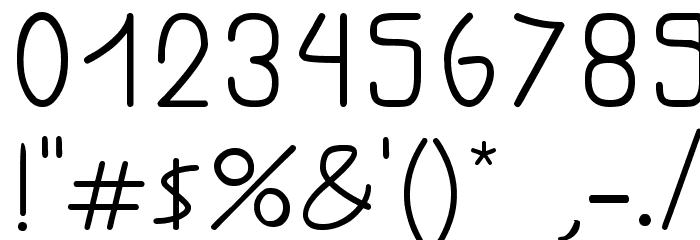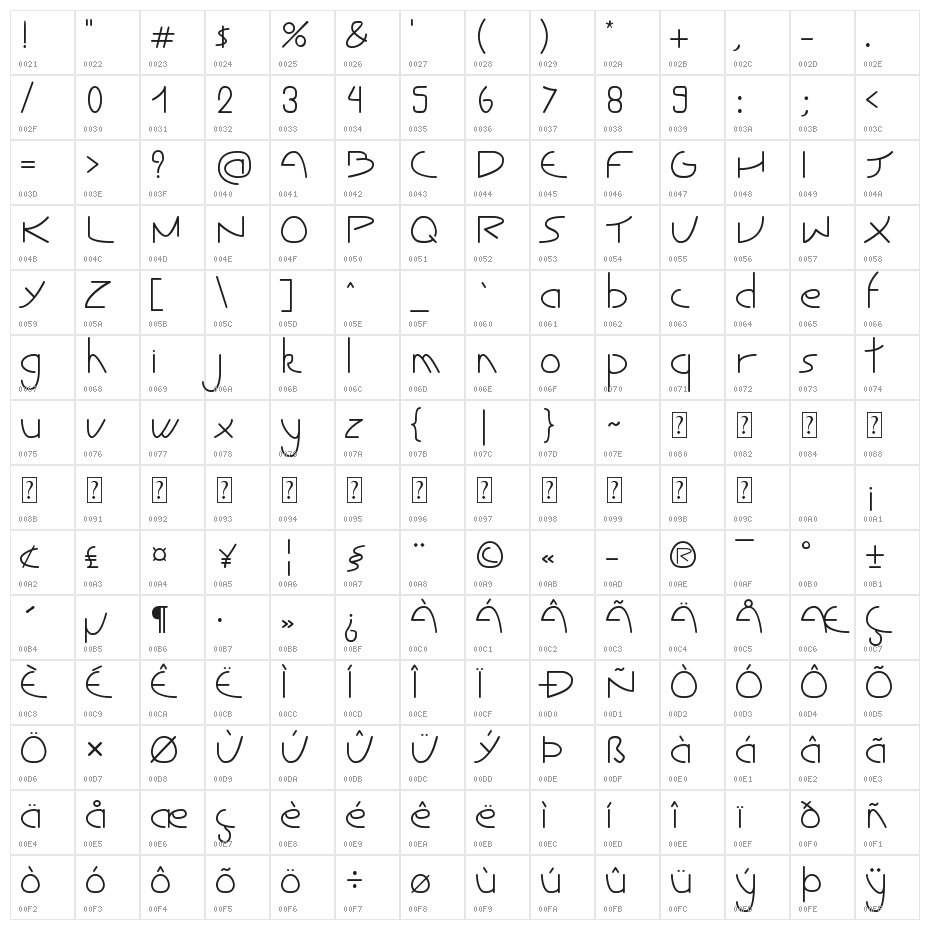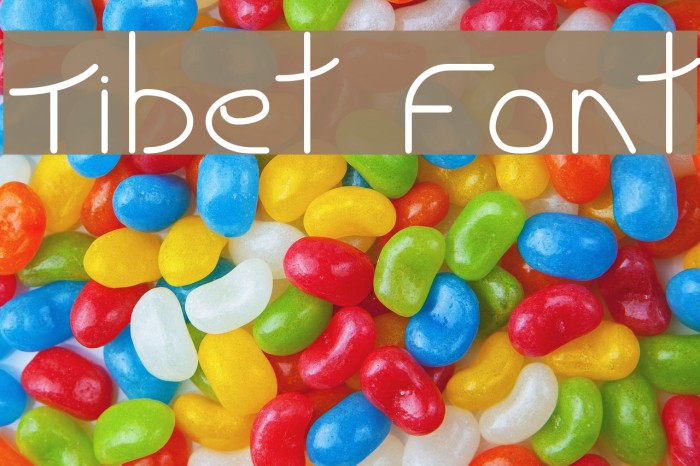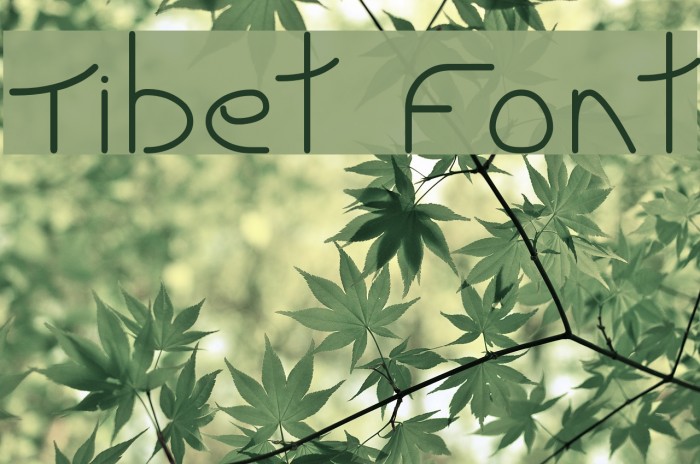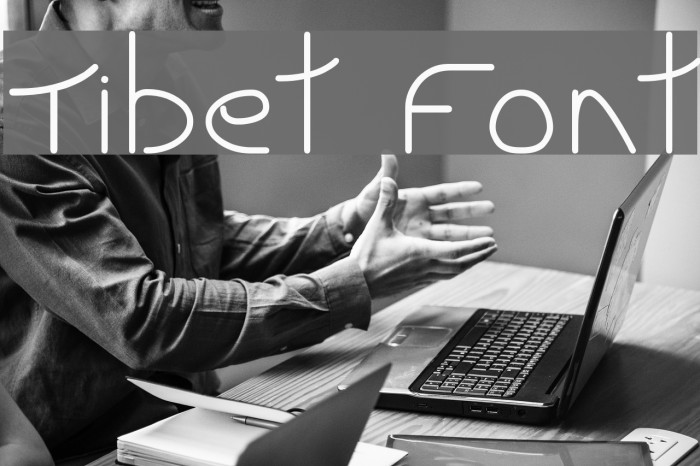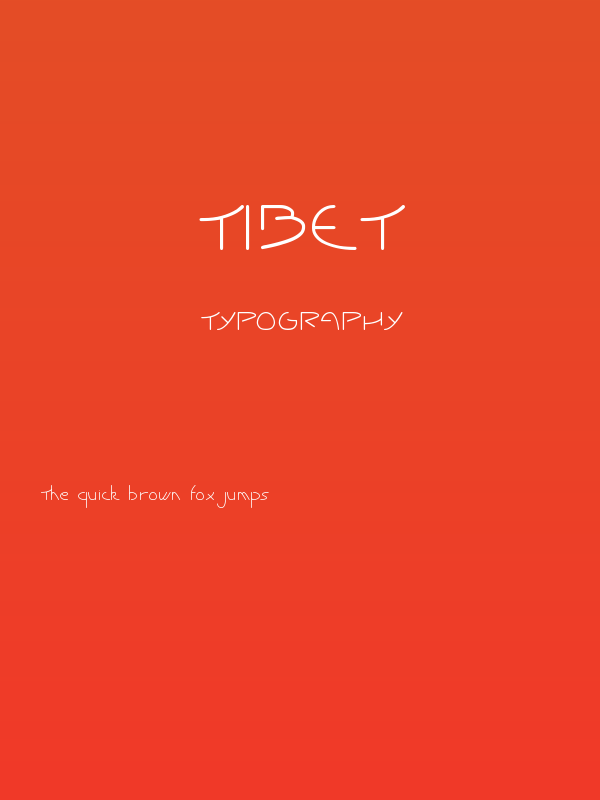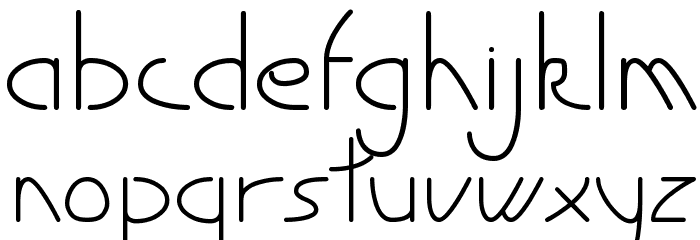
Tibet Font
Tibet Description
This font features a unique, flowing design with a modern and artistic flair. The characters have a smooth, continuous line quality that gives them a handwritten appearance, yet they maintain a structured and legible form. The uppercase letters are slightly more angular, while the lowercase letters exhibit a more rounded and fluid style. The numerals are consistent with the overall aesthetic, providing a harmonious look across all characters. Special characters are integrated seamlessly, enhancing the font's versatility. The overall design is both playful and sophisticated, making it suitable for a variety of creative applications.